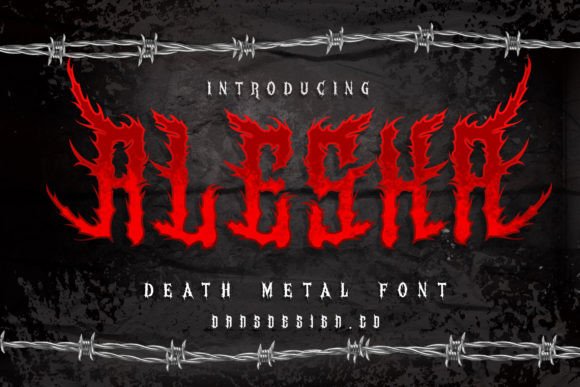
Journey into the realm of the macabre with Alesa Font, the blackletter font that'll send shivers down your spine. This nightmarish typeface, conjured by the dark arts of Dansdesign, is a haunting symphony of sharp, twisted edges and blood-soaked textures. Prepare to unleash a torrent of terror upon your designs.
Alesa Font, the ultimate font for weaving spine-chilling tales, captivating your audience with its sinister allure. Its menacing strokes, dripping with the essence of darkness, will leave an indelible mark on their souls. Dive into the depths of your imagination and conjure hauntingly beautiful designs that dance on the edge of reality.
Unleash the power of Alesa Font and let the darkness consume your text. Perfect for evoking the chilling atmosphere of haunted themes, metal bands, and designs that demand attention, this font will leave an undeniable impact. Embrace the macabre and watch as your creations take on a life of their own, whispering tales of horror and intrigue.
Alesa Font, the font of choice for those who dare to tread the path of darkness, awaits your command. Let your imagination run wild and create designs that will haunt your audience's dreams. The power of darkness awaits you—embrace it and let the sinister beauty of Alesa Font guide you.